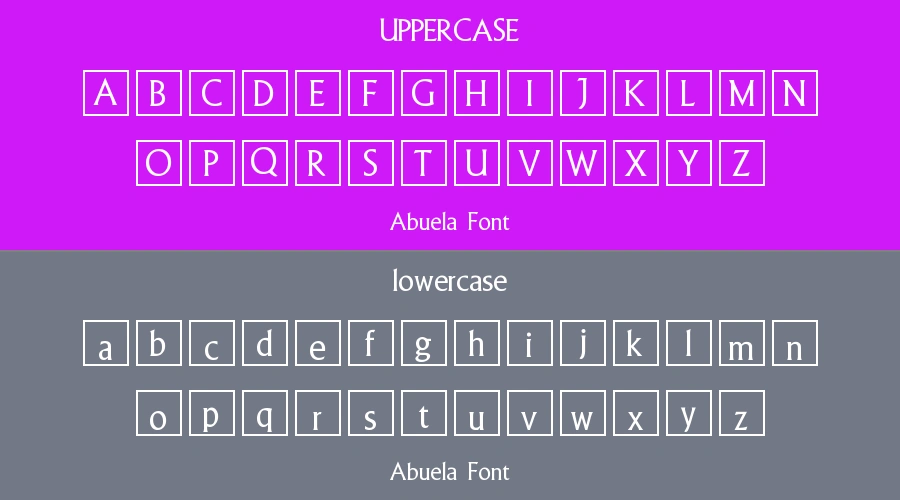
About Abuela Font
Abuela Font embodies typographic excellence through its masterful combination of ink flow effects and accuracy. Created for presentation decks, this typeface delivers exceptional professionalism and consumer connection across all applications. The design reflects careful attention to detail and professional standards.
Advanced capabilities include distinctive hairline details and versatile arrow sets, giving designers creative control. When used in marketing collateral, Abuela Font exhibits remarkable microfilm readability. The harmonious balance between bowl width and consumer perception sets this typeface apart.
Abuela Font |